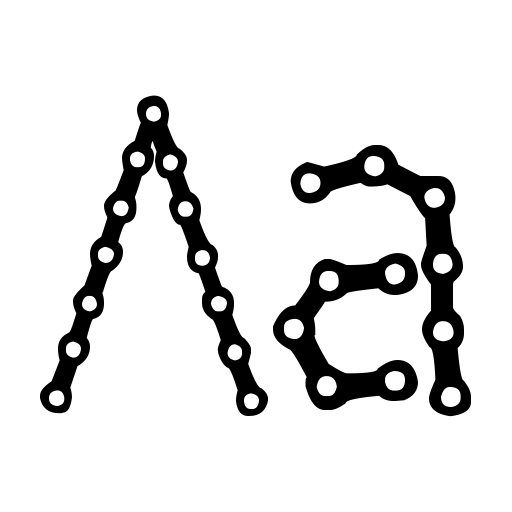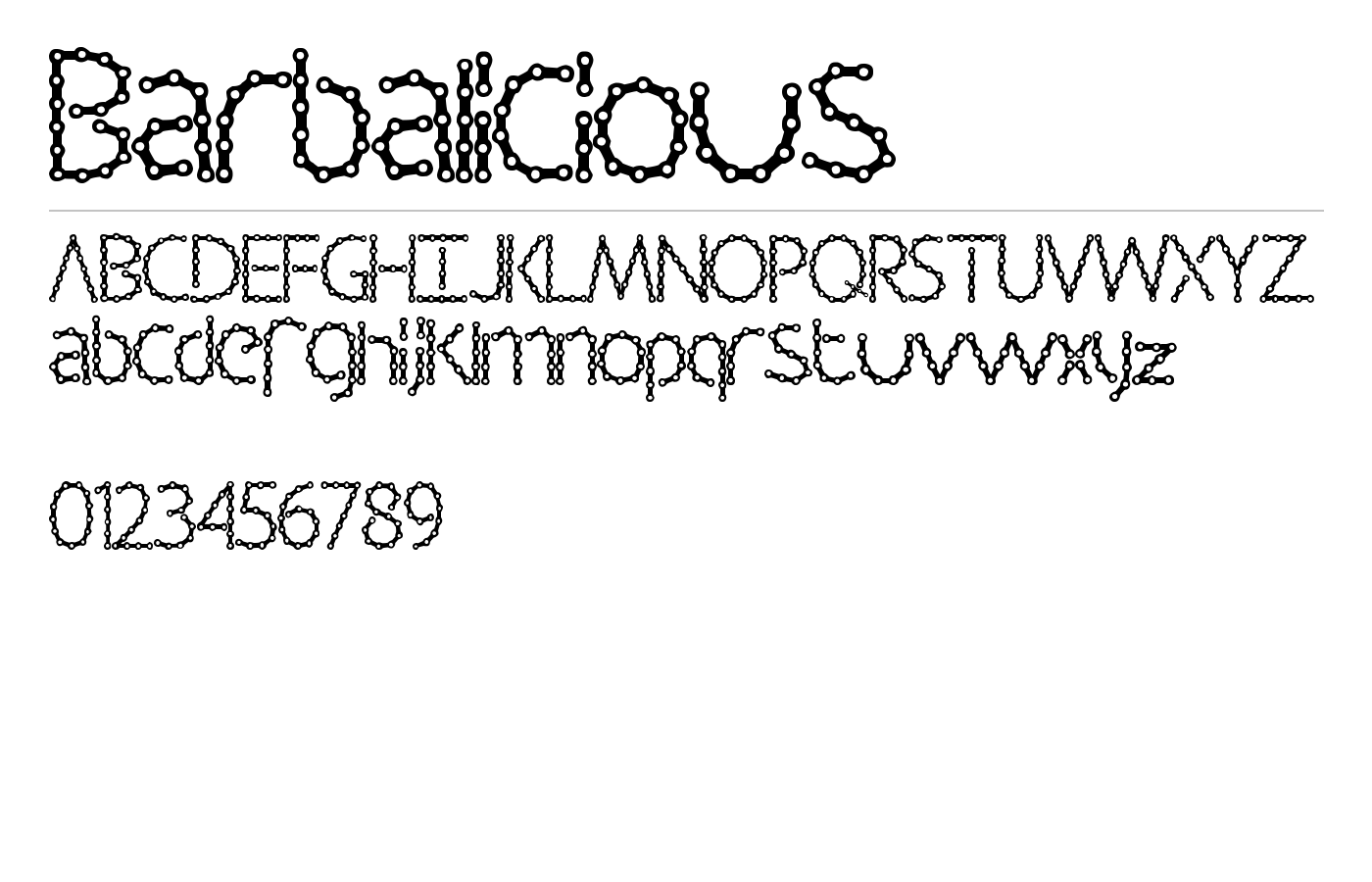
Barbalicious is a playful and unique monoline sans serif font that mimics the look of interconnected bike chains, featuring rounded nodes and smooth curves that give it a fun, mechanical vibe. Its light weight and airy spacing make it ideal for creative, casual branding or graphic projects that want to convey energy and movement. This font works great for logos, posters, and headlines where a distinctive, quirky style is desired.
Barbalicious Font